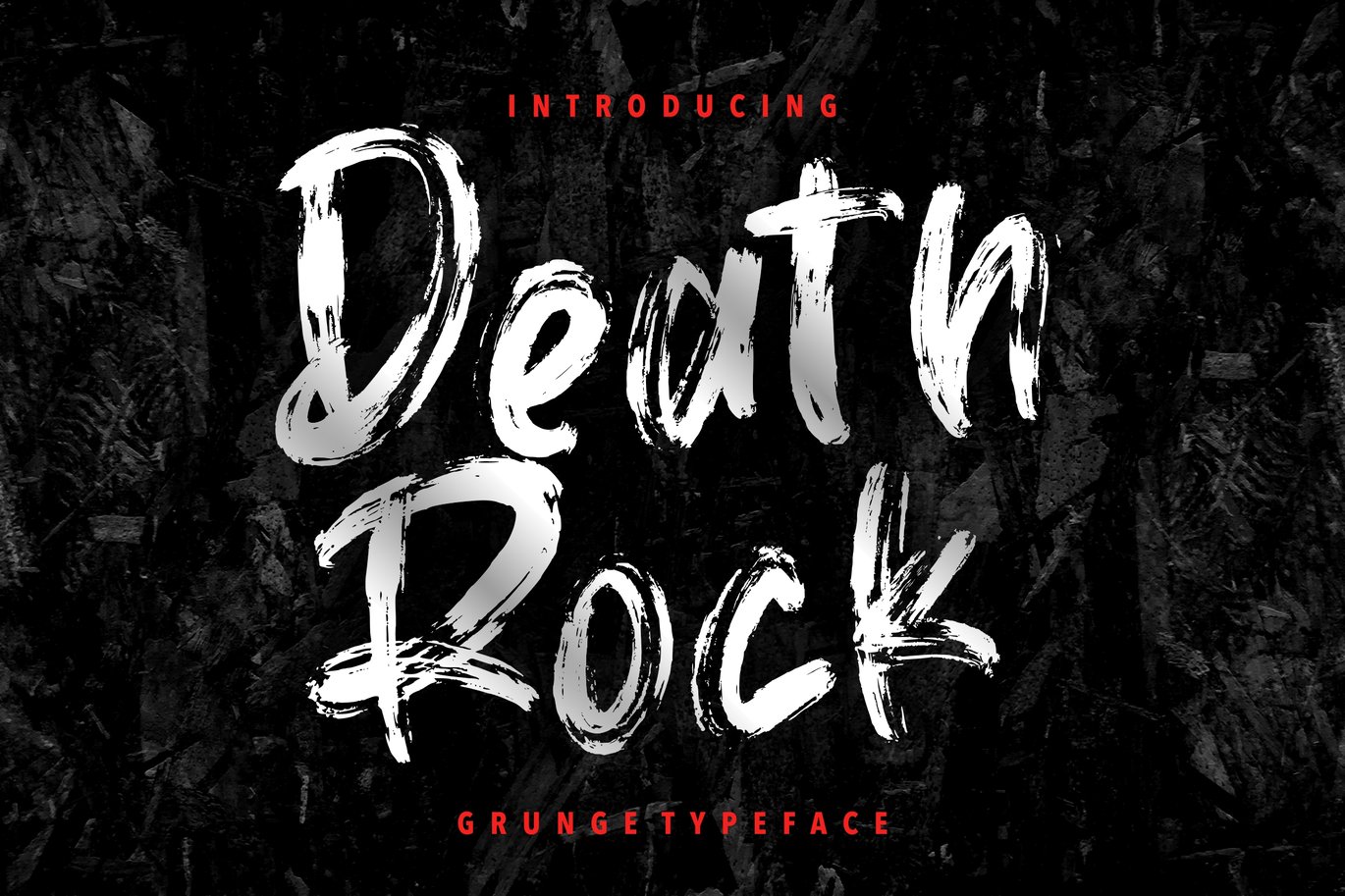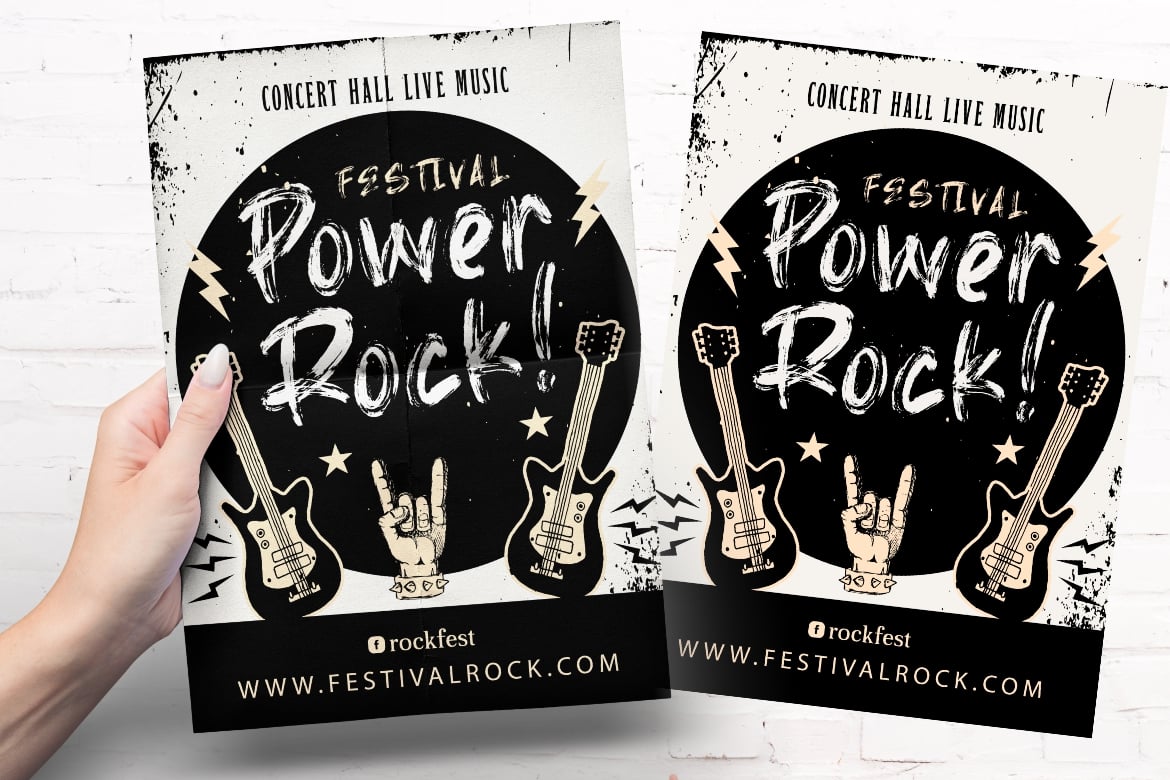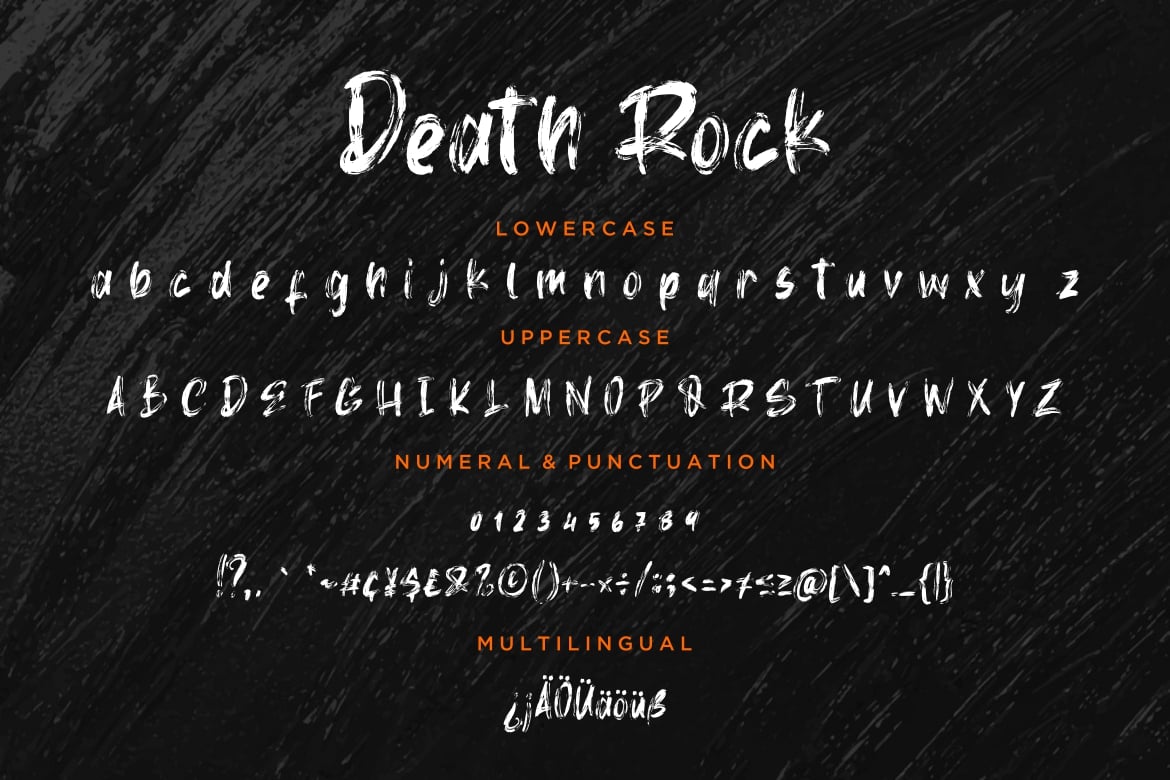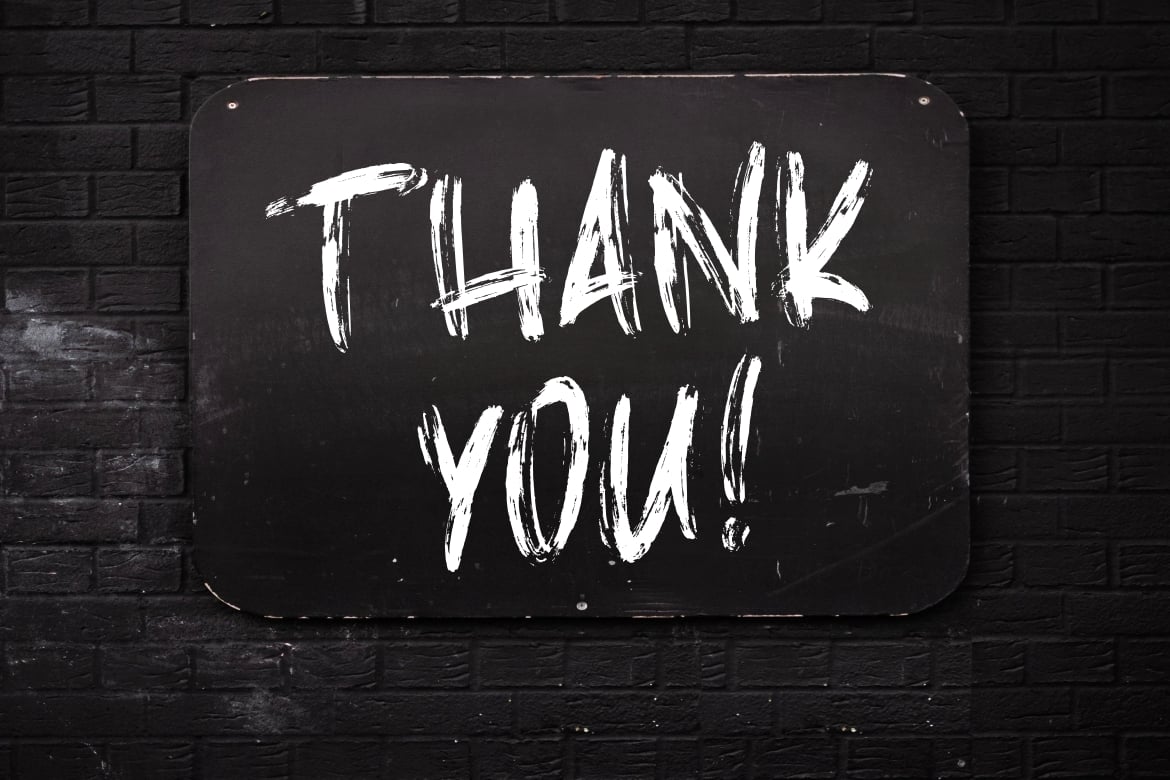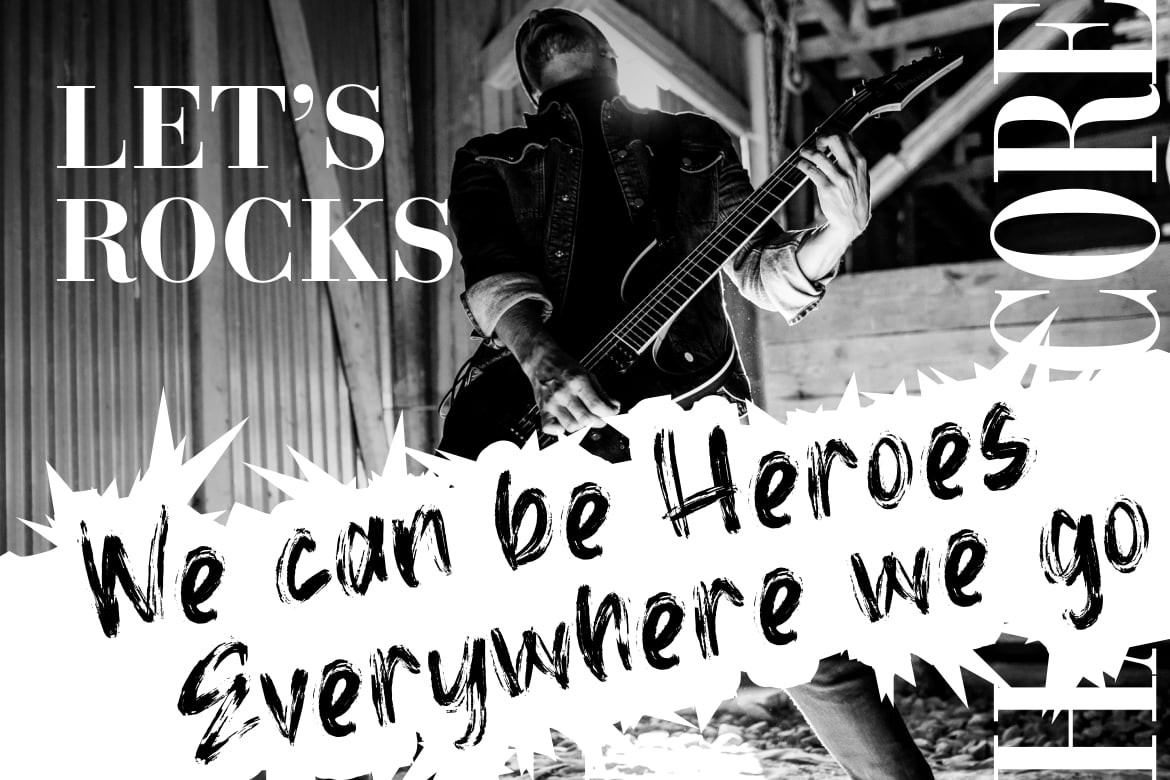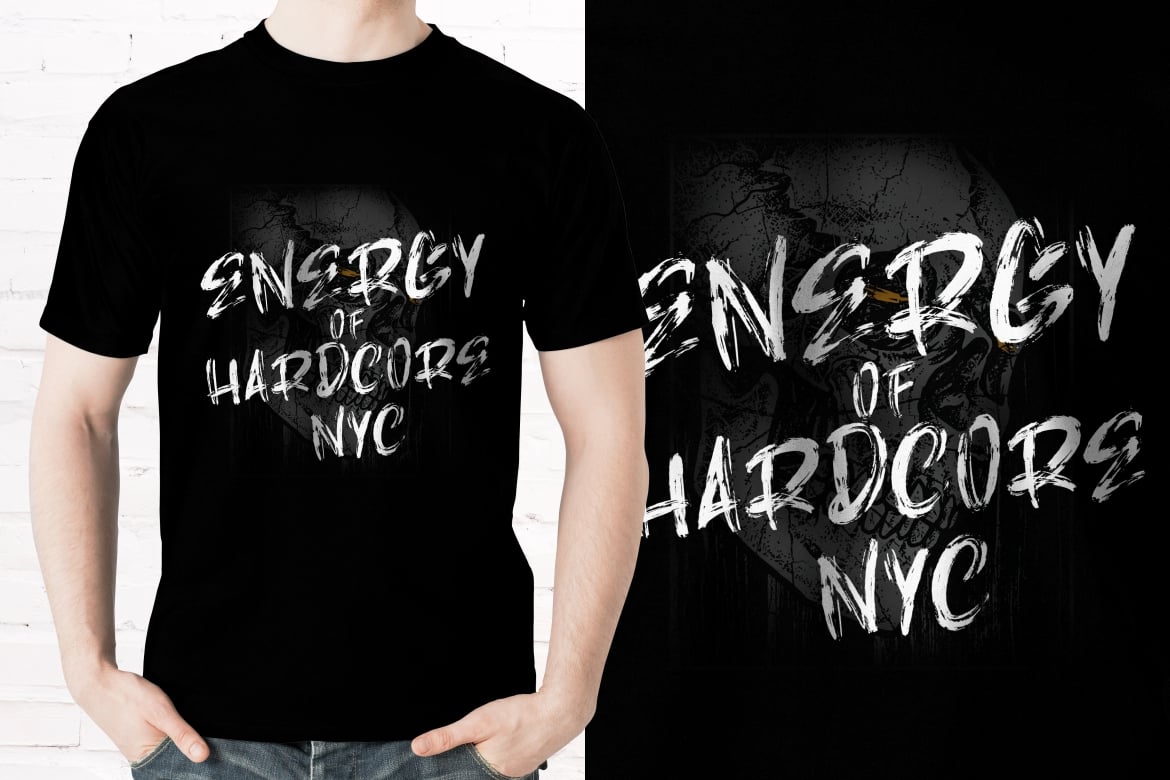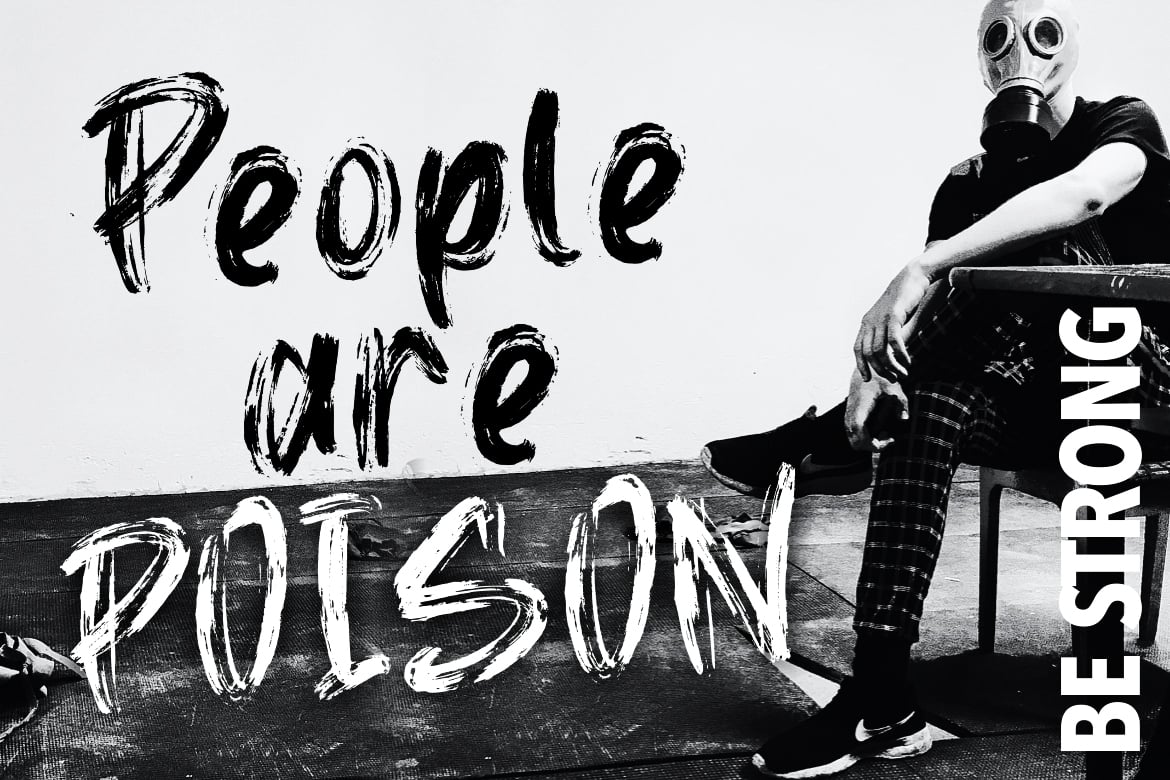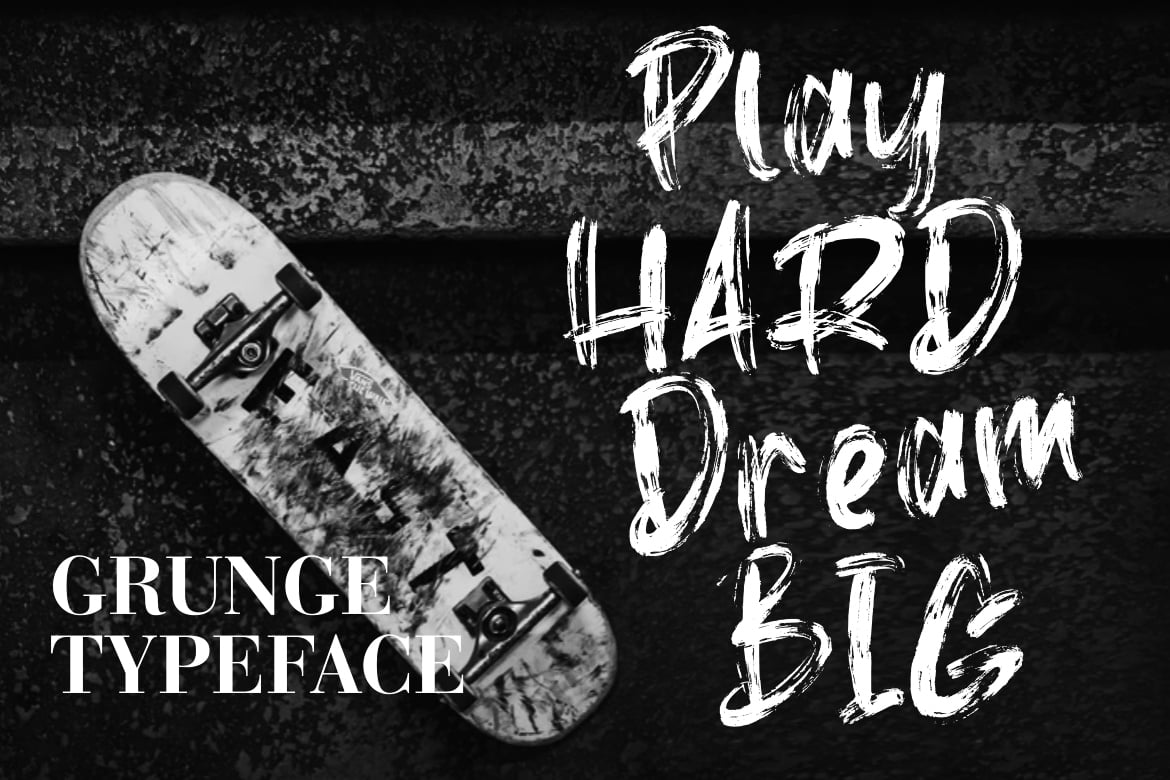
Death Rock Grunge Business Font
Death Rock is hand brush font with hard, bold and scratch that perfect for your amazing project.
Death Rock is perfect for branding projects, logo, wedding designs, social media posts, advertisements, product packaging, product designs, label, photography, watermark, invitation, stationery and any projects that need handwriting taste.